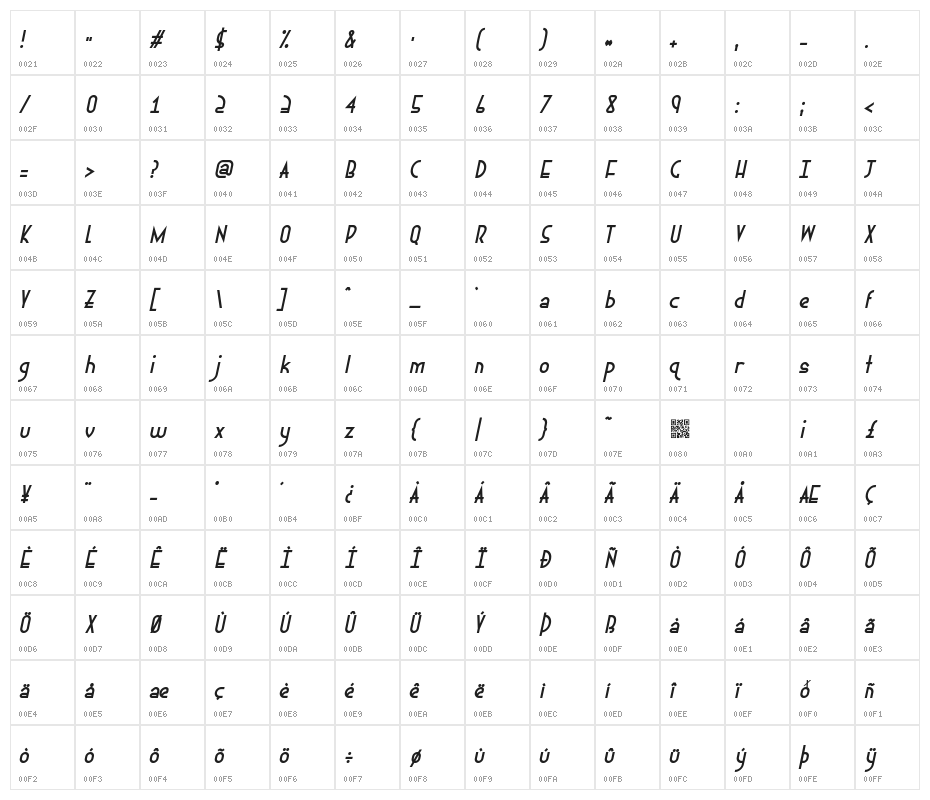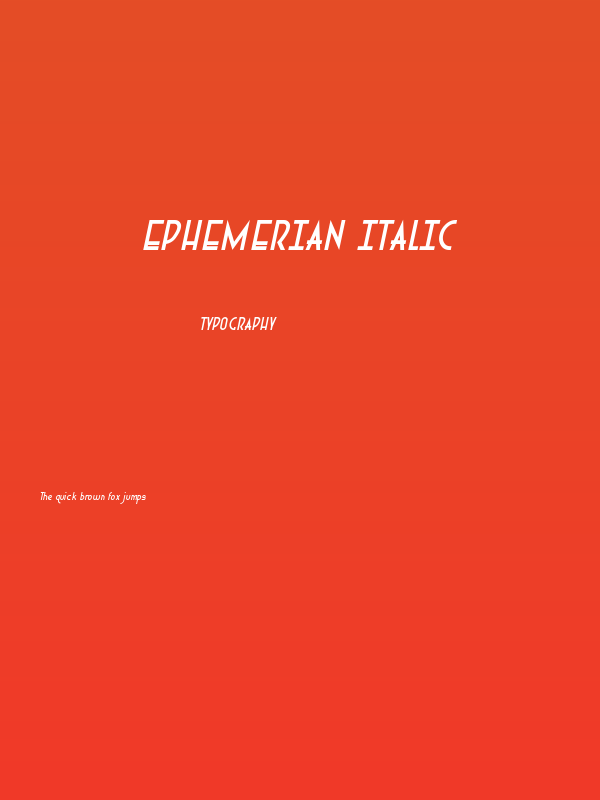
Ephemerian Italic Font
Ephemerian Italic Description
This font exhibits a dynamic and modern italic style, characterized by its forward-leaning posture and sharp, angular lines. The uppercase letters are bold and assertive, with a slight slant that adds a sense of motion and energy. The lowercase letters maintain a consistent style, offering a harmonious blend with the uppercase set. Numbers are distinct and clear, ensuring readability. Special characters are designed to complement the overall aesthetic, making them suitable for various applications. The font's unique style is both contemporary and versatile, making it ideal for creative projects.
| Proposed Projects | Ideal for branding, advertising, and editorial design where a modern and energetic feel is desired. |